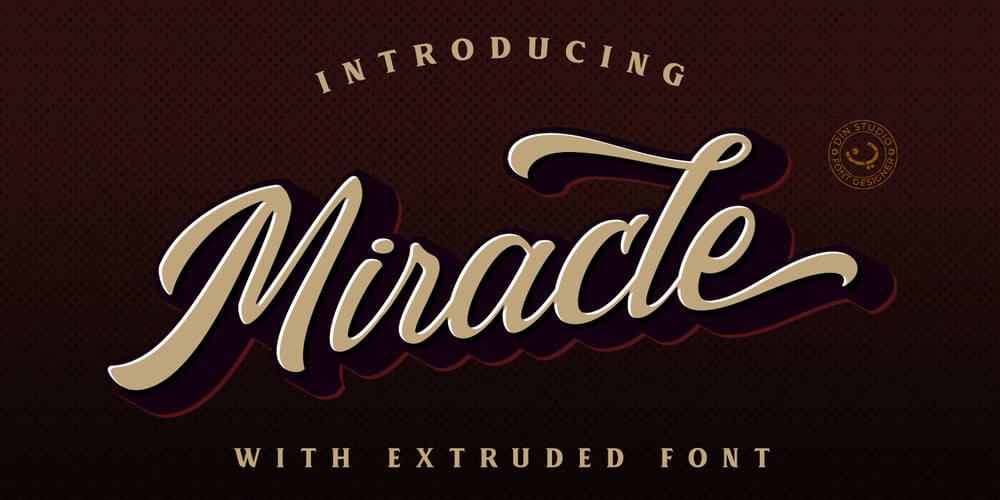
Miracle Script
Miracle Script font
Miracle Script Font Family was designed by Donis Miftahudin and published by Din Studio. Miracle Script contains 2 styles and family package options. Miracle Script is modern logo typeface. This font will be suitable for t-shirt printing, name-card design, branding projects, product packaging, quotes, logos, book covers, and all other lovely projects. Miracle Script will further power your design with the included extruded weight. For more information you can contact me : donis4design@gmail.com